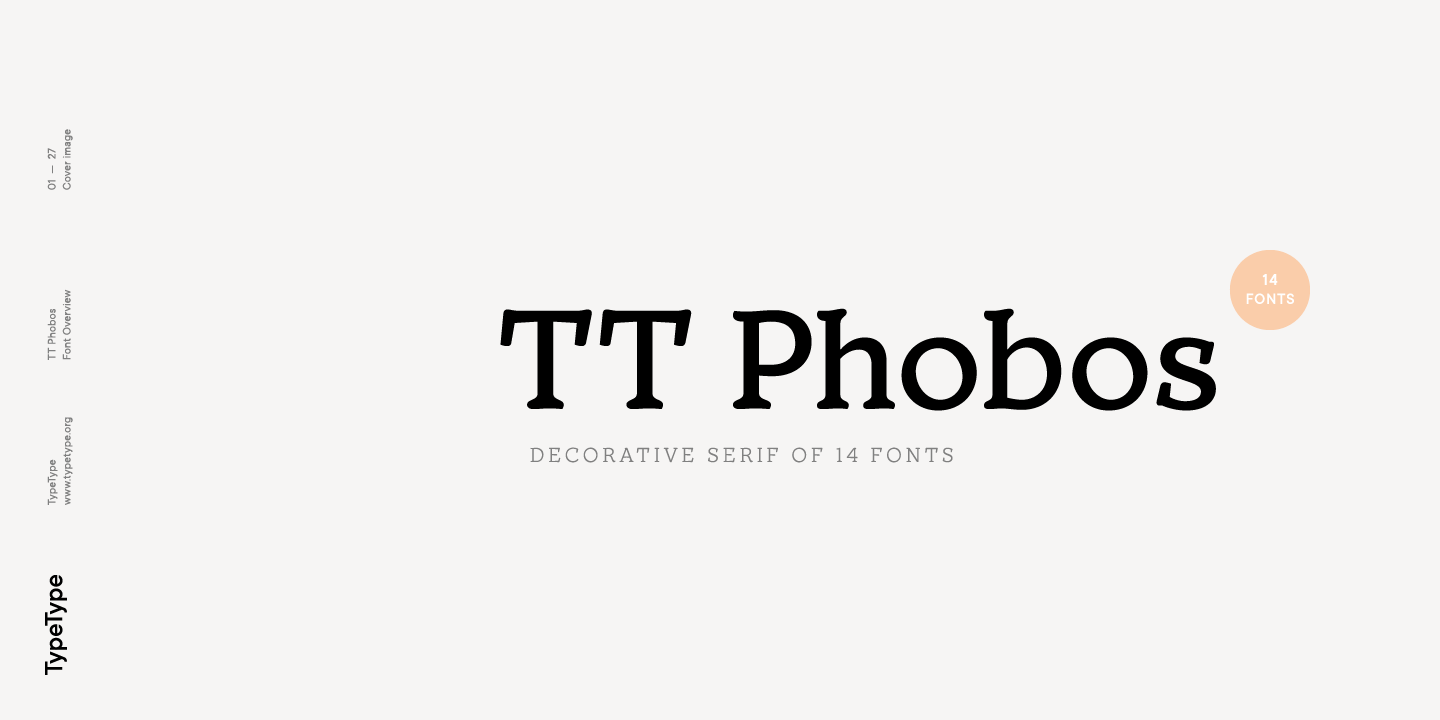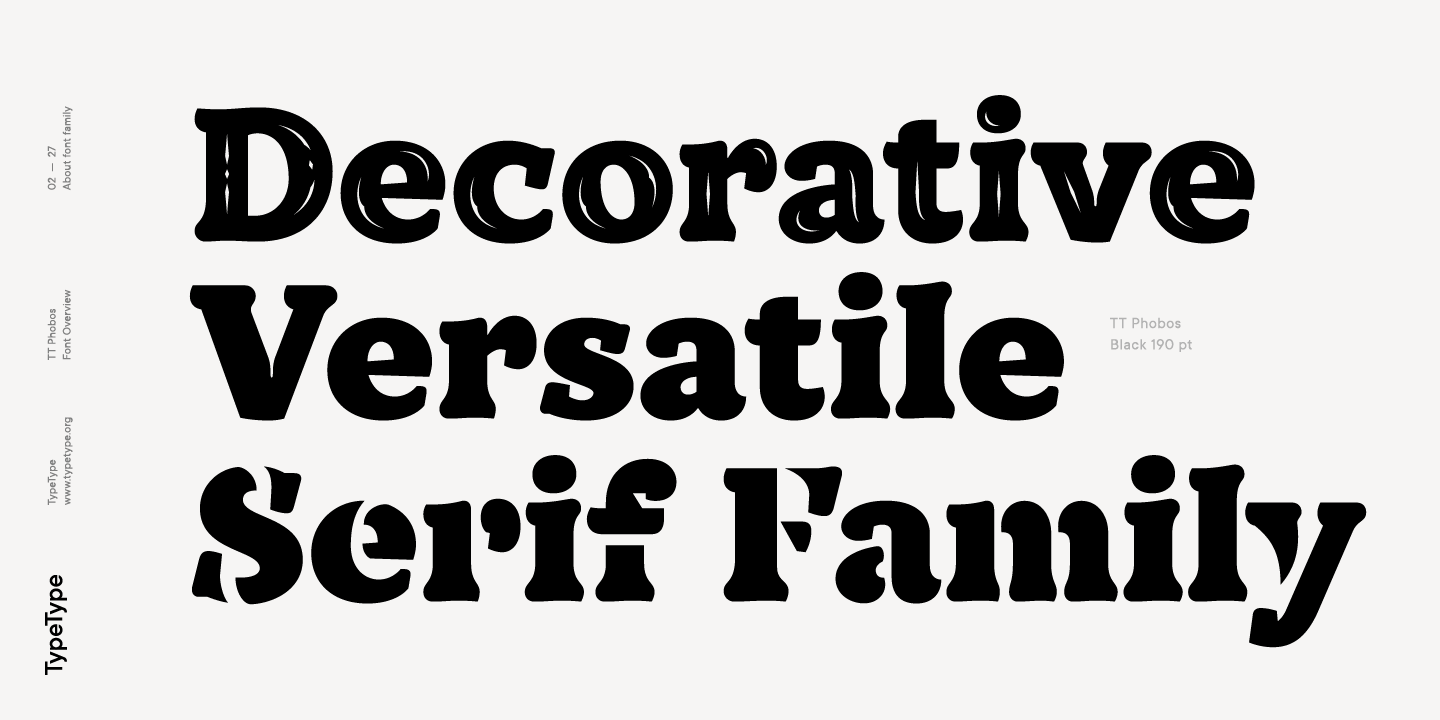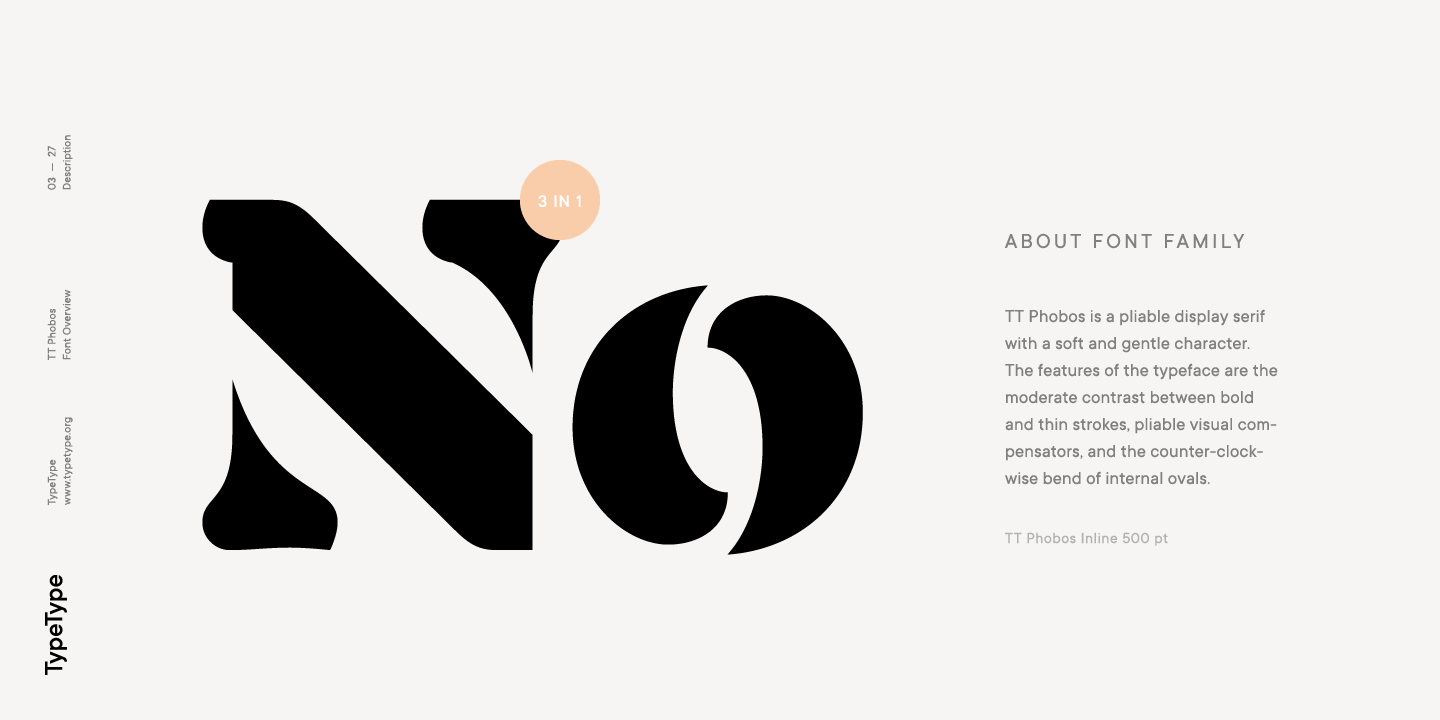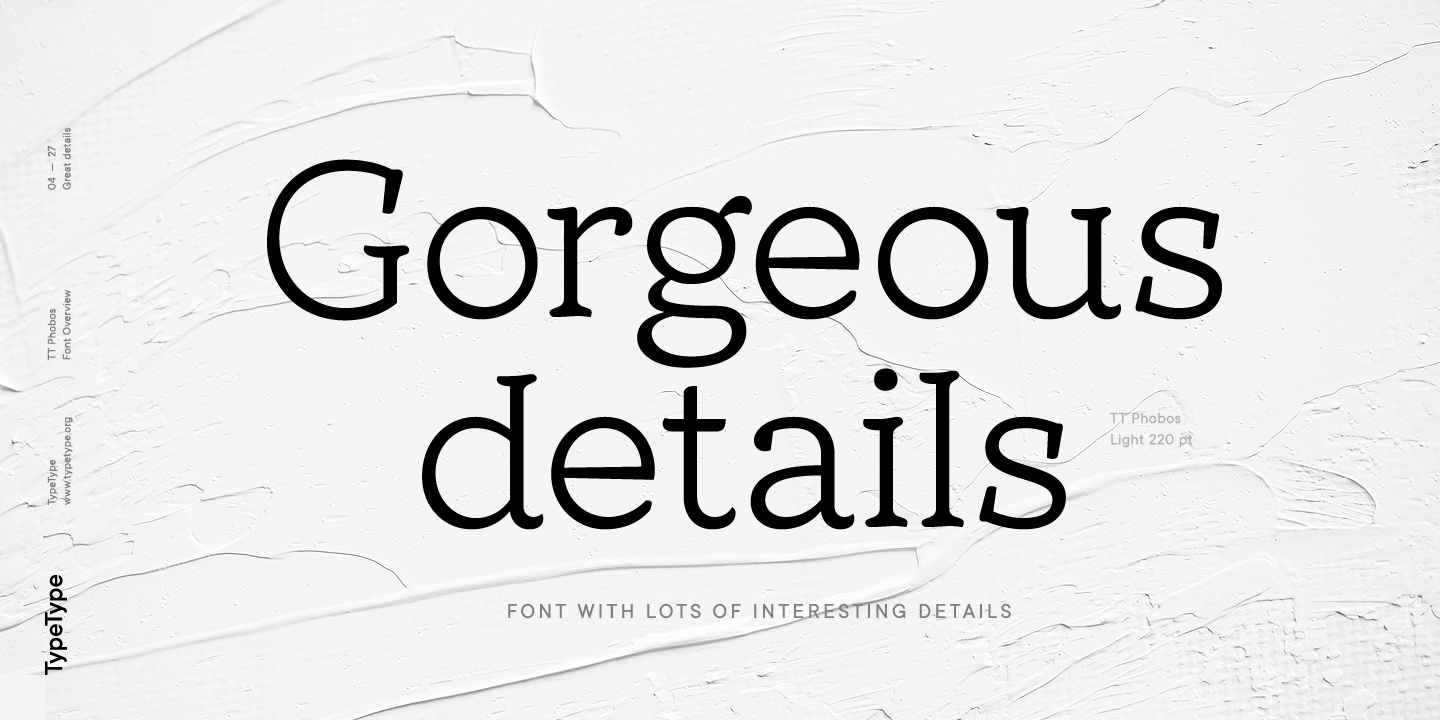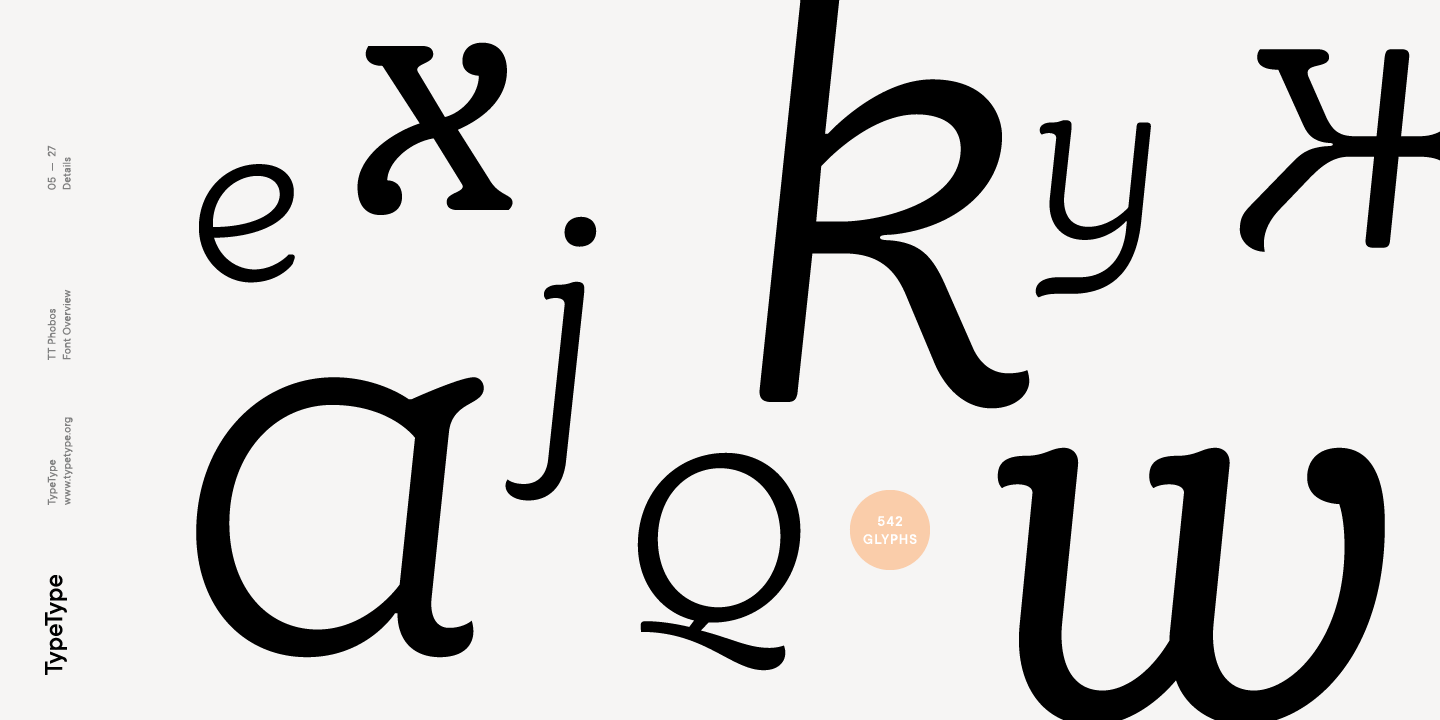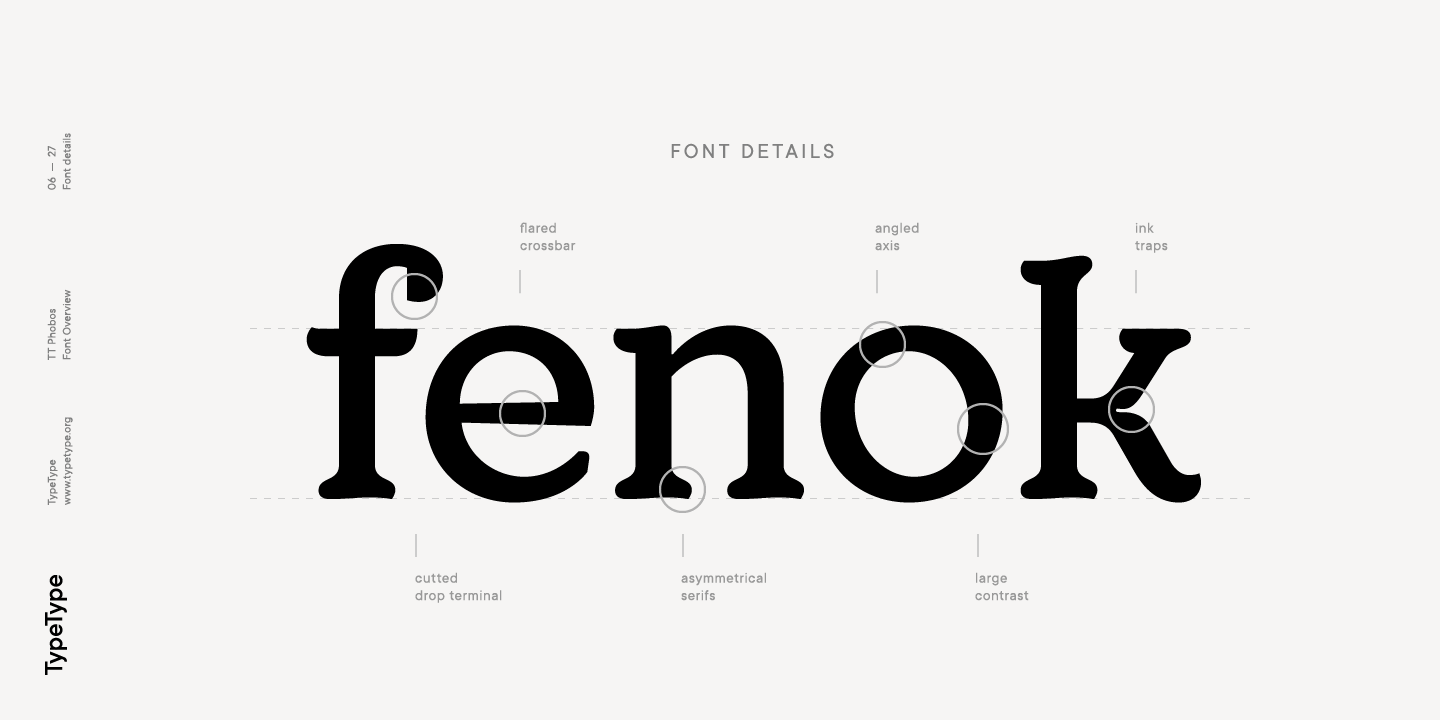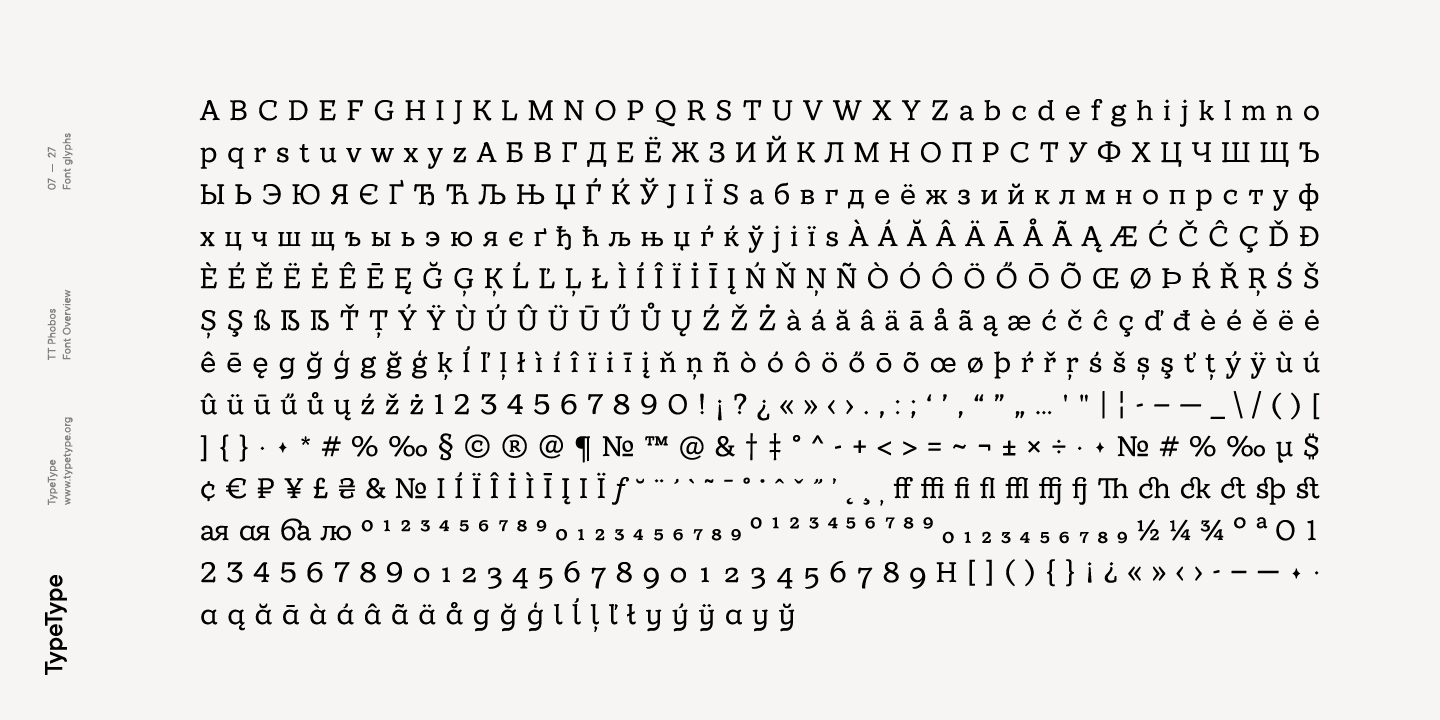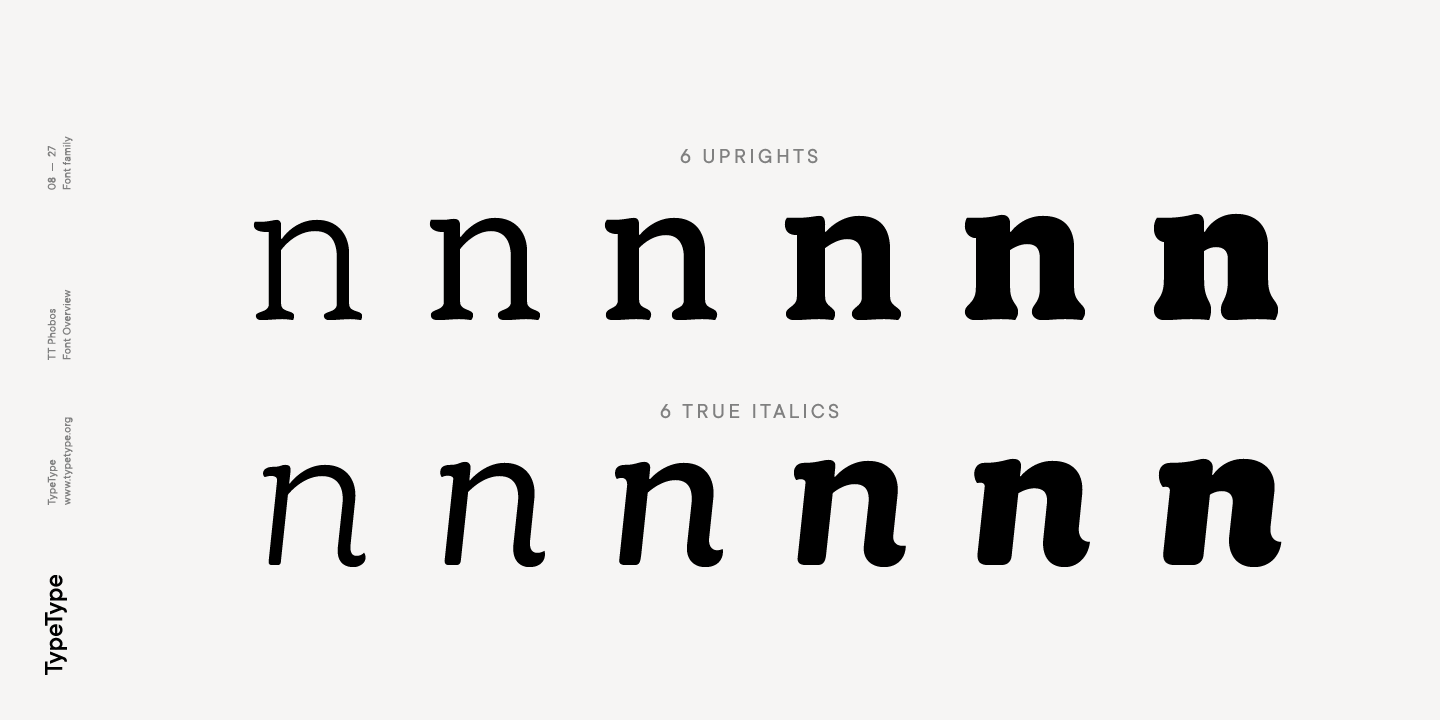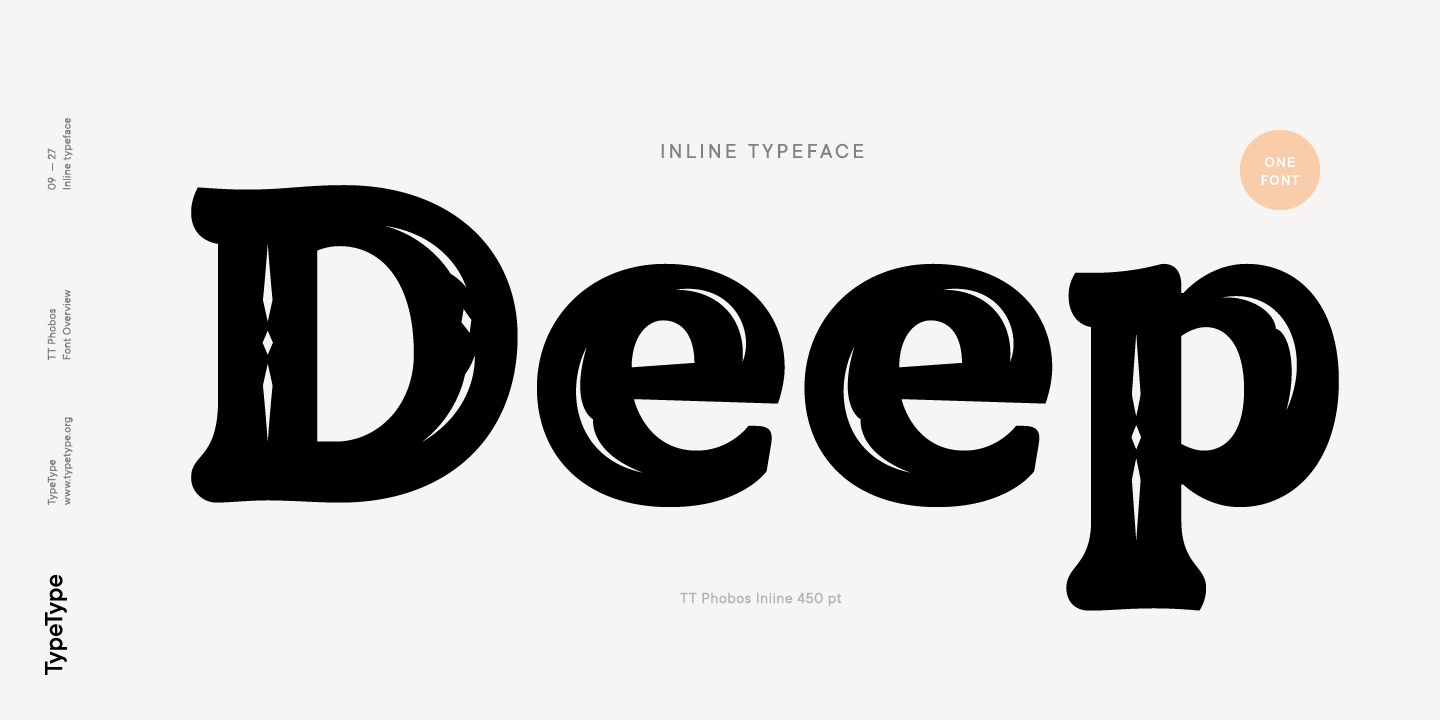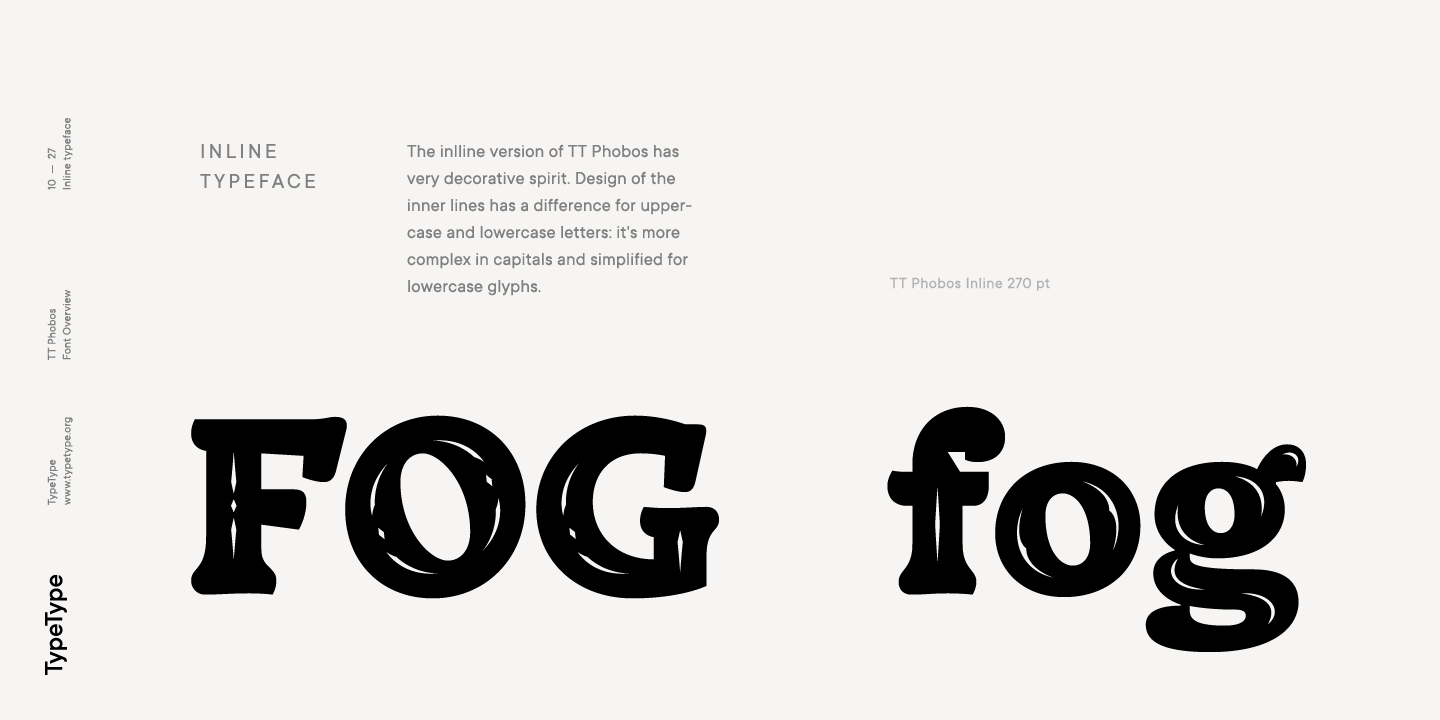
TT Phobos Family (14 fonts)
TT Phobos is a pliable display serif with a soft and gentle character. The features of the typeface are the moderate contrast between bold and thin strokes, pliable visual compensators, and the counter-clockwise bend of internal ovals. In addition to 6 weights and 6 italics, TT Phobos also includes two original decorative fonts, inline and stencil.
Despite its pliability and display character, TT Phobos is dynamic enough and well suited for text arrays even in large text blocks. The serifs of letters are completely asymmetrical and bring in dynamics when reading the text from left to right. Thanks to the harmonious contrast of black and white forms and internal negative spaces of the letters, as well as its broad letter spacing, the typeface is well read in small sizes. In this case, the character of the letters is completely preserved, partially thanks to the exaggerated elegant visual compensators.
The ornamental pattern used in TT Phobos Inline varies for capital and lowercase letters. Capital letters implement a more complex double inline with a rhombic element in the middle, and in the lower case features a simplified form of the inline, made in a single movement. Thanks to the original cutting, TT Phobos Stencil stands out for its expression, and the rounded cuts add even more visual style to the font.
TT Phobos consists of 14 faces: 6 weights (Light, Regular, DemiBold, Bold, ExtraBold, Black), 6 Italics, inline and stencil. There are 17 ligatures in TT Phobos, including several Cyrillic ones. The typeface has stylistic alternates, which adds an italic effect to the upright fonts, and a little solemnity of the upright version to the italics. In addition, we have not forgotten about the old-style figures and other useful OpenType features, such as ordn, sups, sinf, dnom, numr, onum, tnum, pnum, liga, dlig, salt (ss01), frac, case.